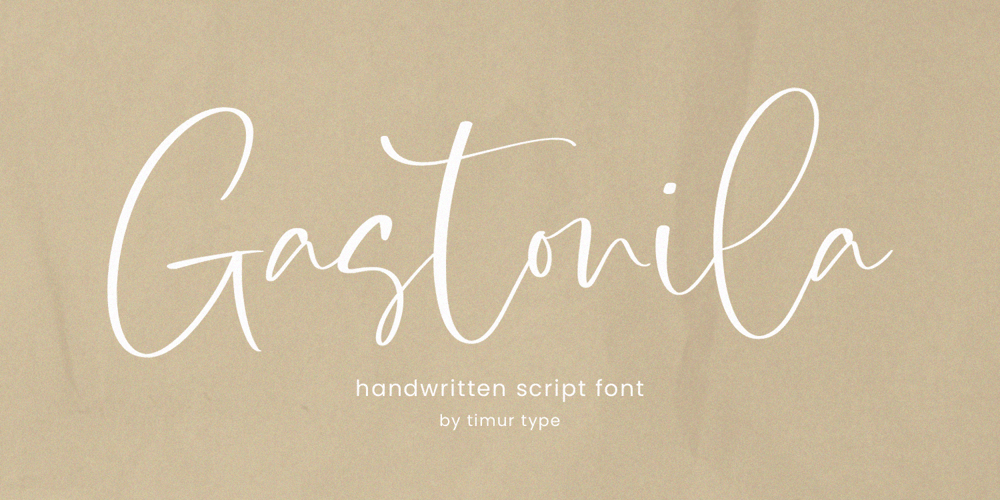
Gastonila Font Family was designed by Wara Sigit Tri Pamungkas and published by Timurtype. Gastonila contains 1 styles and family package options. Introducing by Timur typeProudly Present, Gastonila A Handwritten Script FontGastonila is perfect for product packaging, branding project, megazine, social media, wedding, or just used to express words above the background.Gastonila also multilingual support.Embelish your designs with our original fonts.Enjoy the font,Thank you!